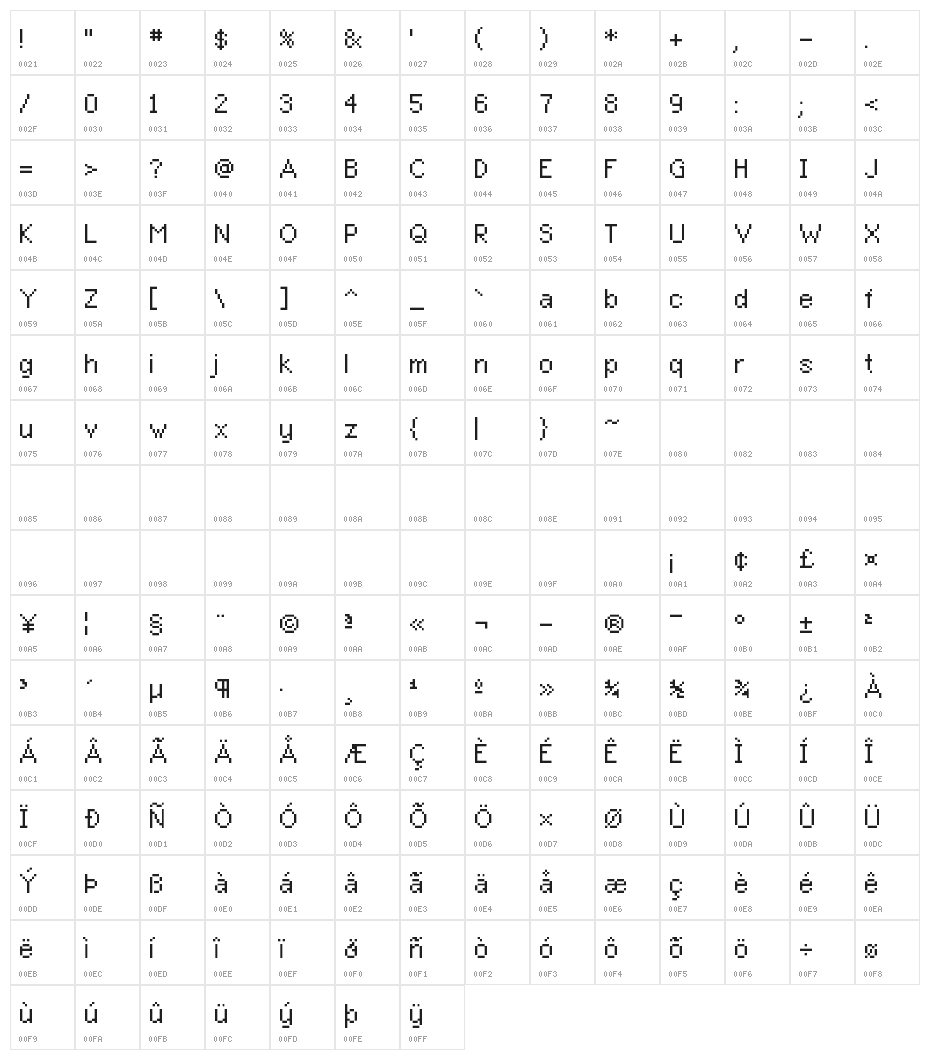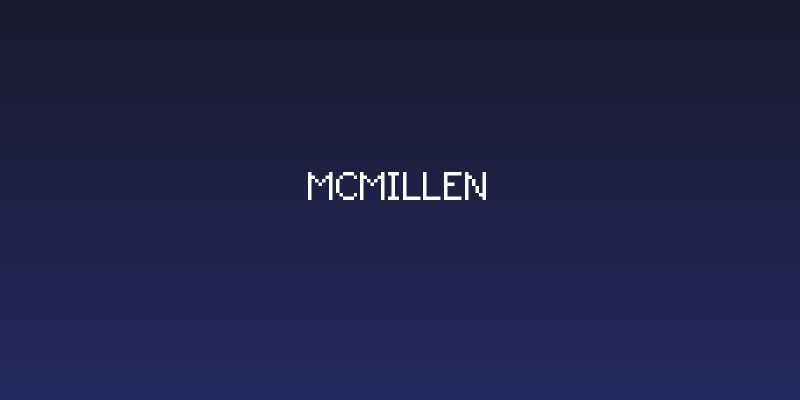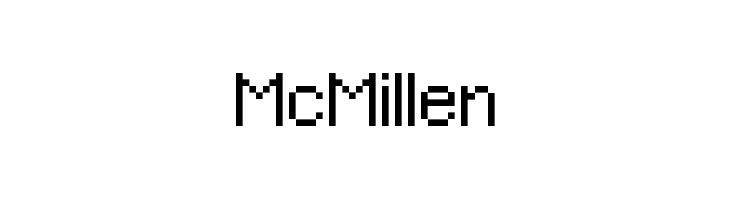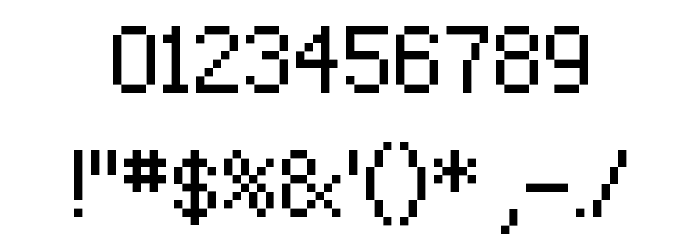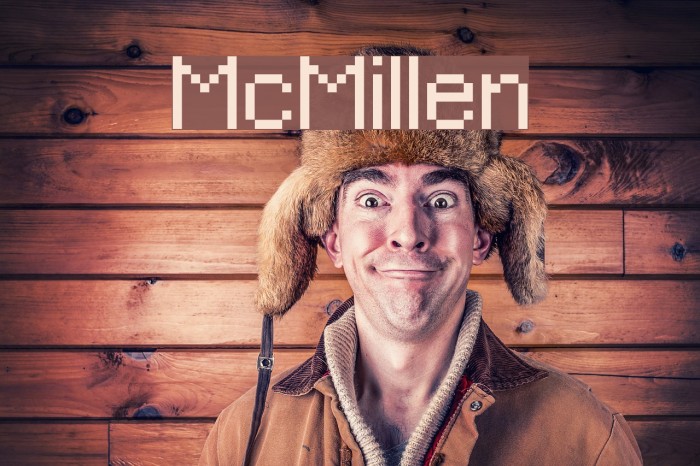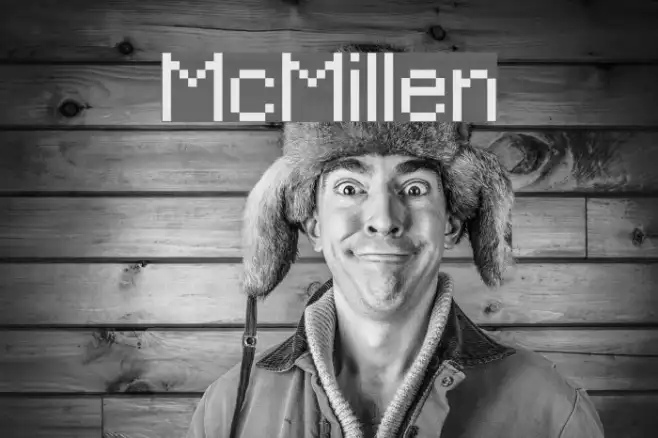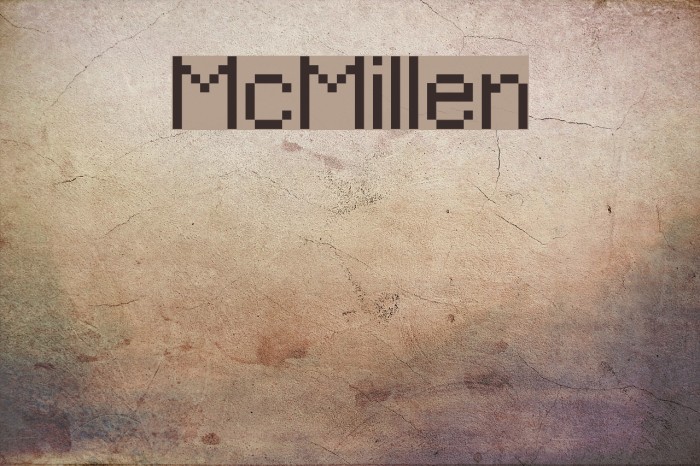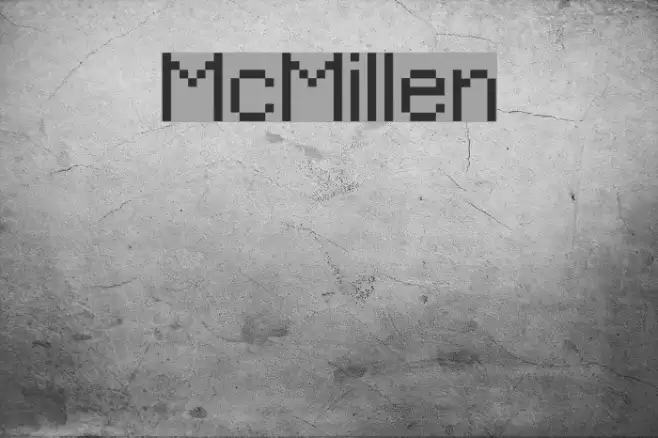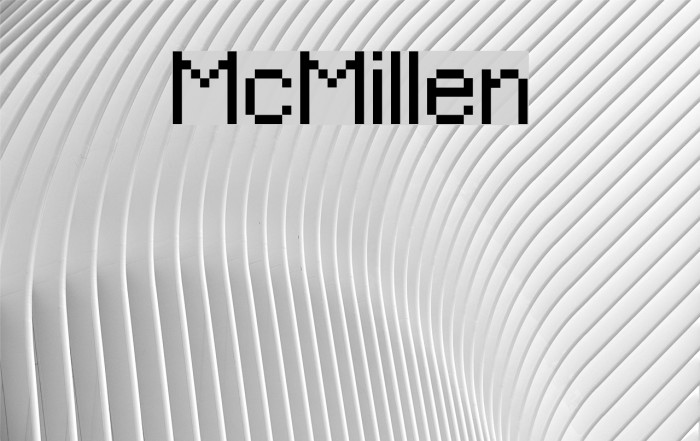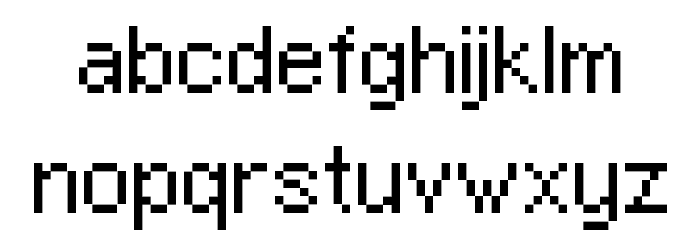
McMillen Font
McMillen Description
This font features a pixelated, blocky design reminiscent of early digital typefaces. Each character is constructed with a grid-like precision, giving it a distinctly retro, digital appearance. The uppercase and lowercase letters maintain a consistent height, contributing to a uniform look. The numerals and special characters are designed with the same pixelated style, ensuring cohesion across all glyphs. This font evokes a sense of nostalgia for vintage computing and video games, making it ideal for projects that aim to capture a retro digital aesthetic.
| Use Case | Logos, Headlines, Digital Art |
| Proposed Projects | Ideal for retro video game graphics, digital art projects, tech-themed designs, and nostalgic branding. |